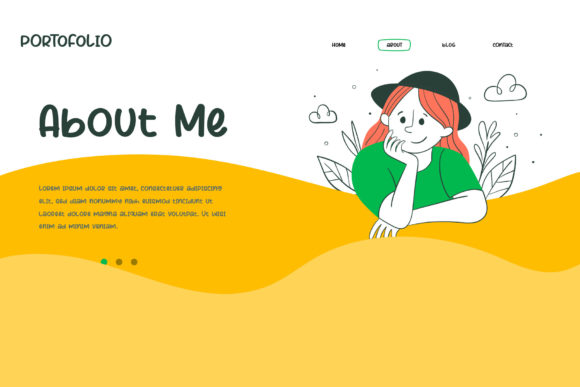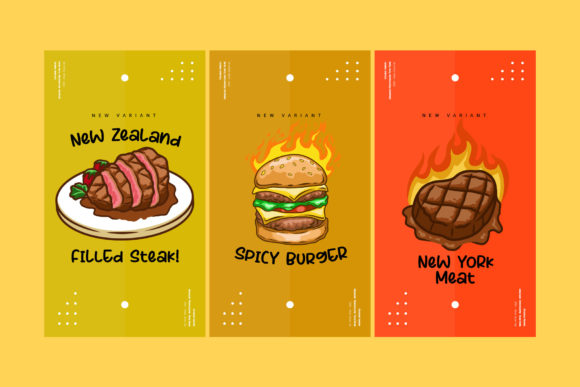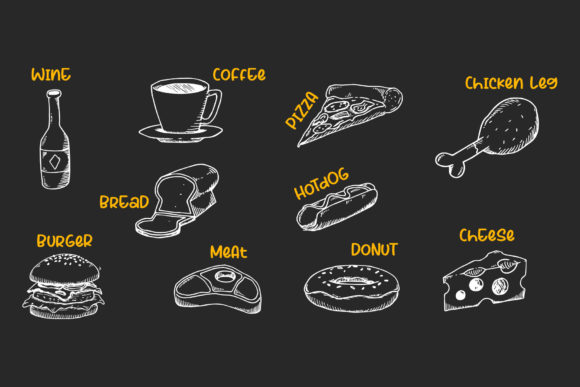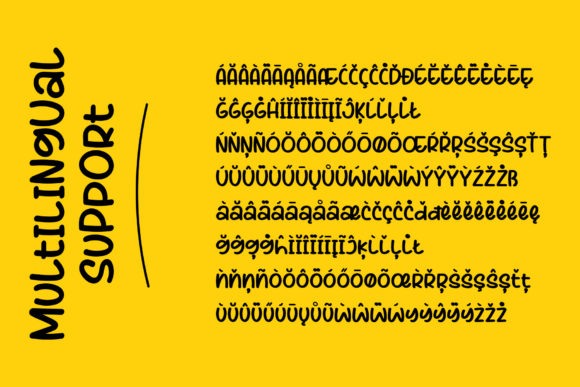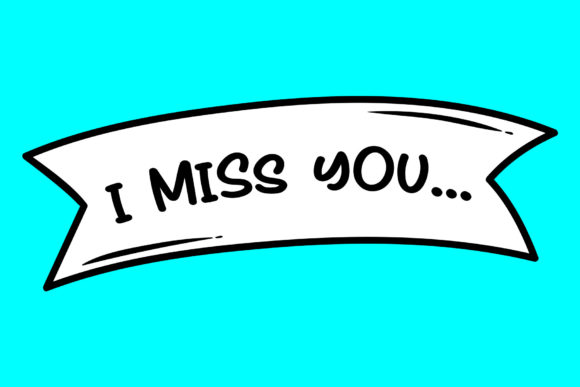
Unlock the Magic of Hand-Drawn Charm
Remember the joy of doodling in your notebook as a kid? The feeling of bringing your imagination to life with a simple pencil and a blank page? That same sense of wonder and creativity can be captured with the perfect font, and that’s where Anything Skribble Font comes in.
This fun and friendly display font is designed to add a touch of whimsy and personality to any design project. Whether you’re working on a cartoon, a children’s game, or just a creative project that needs a little extra love, Anything Skribble Font is the perfect choice. Its hand-drawn charm and playful feel make it a valuable asset for designers looking to add a unique touch to their work.
Anything Skribble Font Key Features
- Font Family: Anything Skribble Font is a unique, handwritten font designed to mimic handwritten text, ideal for creative projects and artistic expressions.
- Font Size: The font is designed to be scalable, allowing for easy use in various font sizes, from small captions to large headings.
- Resolution: Suitable for both screen and print use, with clear readability at resolutions up to 300 DPI.
- Unique Characteristics: The font features a distinctive, hand-drawn feel with varied line widths, subtle imperfections, and expressive flair, making it perfect for adding a personal touch to designs.
- Font Weight: Available in multiple weights, from Light to Bold, providing flexibility for designers to choose the perfect level of emphasis for their project.
Anything Skribble Font Review
I recently had the chance to work with the Anything Skribble Font and I have to say, it’s a pretty unique addition to any design project. ✨ The font’s dynamic, handwritten feel is perfect for adding a personal touch to logos, social media graphics, or even editorial content.
One of the things I appreciate most about the Anything Skribble Font is its versatility. ✨ It’s available in a range of styles, from casual to formal, making it easy to adapt to different design contexts. Additionally, the font’s expressive nature makes it an excellent choice for conveying emotions and ideas in a more creative way.
While the Anything Skribble Font has a lot to offer, there are a few limitations to consider. ⚠️ For one, the font may not be ideal for body text, as its irregular spacing and letterforms can make it difficult to read in large blocks of text. Additionally, some users may find the font’s more casual styles to be too informal for certain design applications.
Overall, I think the Anything Skribble Font is a great choice for designers looking to add a bit of personality to their work. ✨ While it may have some limitations, its unique style and versatility make it a valuable addition to any design toolkit.
- Unique, handwritten feel
- Available in multiple styles
- Expressive, emotive nature
- May not be suitable for body text
- More casual styles may be too informal for certain design applications
Anything Skribble Font: A Practical Application Guide
Experiment with different font sizes, colors, and styles to create a unique look.
Use the font to add a playful or creative touch to your designs.
Combine the font with other design elements to create a visually appealing composition.
The Anything Skribble Font is ideal for:
Social media graphics
Marketing materials
Branding and logos
Digital art and illustrations
When searching for alternatives to the Anything Skribble Font, designers have several options to consider. Here are a few alternatives:
Comic Sans MS is a sans-serif font designed by Vincent Connare in 1994. It’s a playful, casual font often used for informal or creative projects. When to use: Blog posts, social media graphics, and other casual designs. Comparison: Comic Sans MS is more rounded and playful than Anything Skribble Font, which makes it a better choice for projects that require a lighthearted tone.